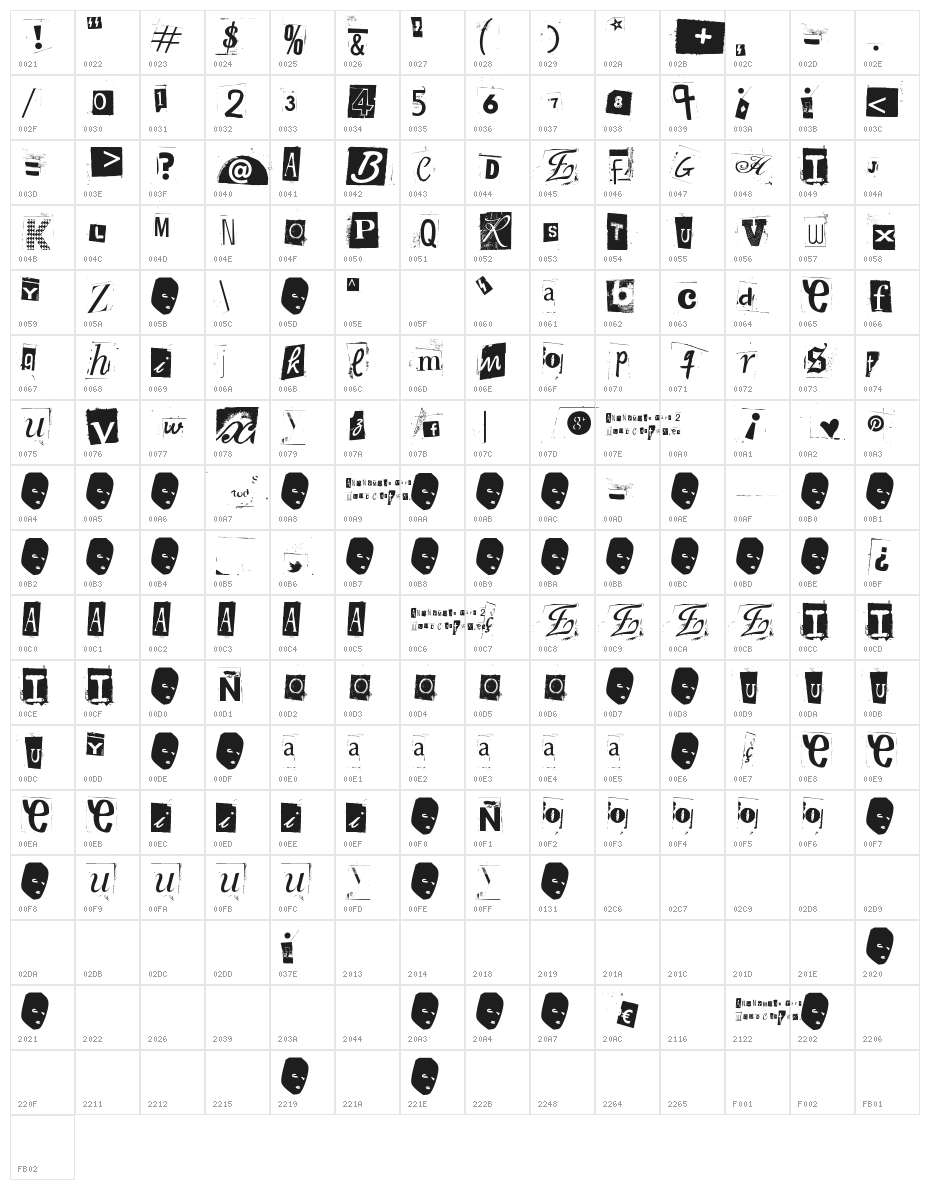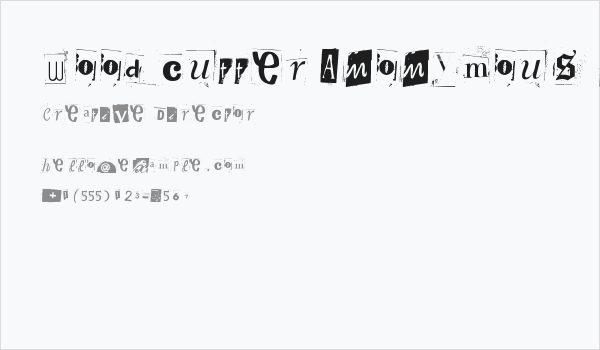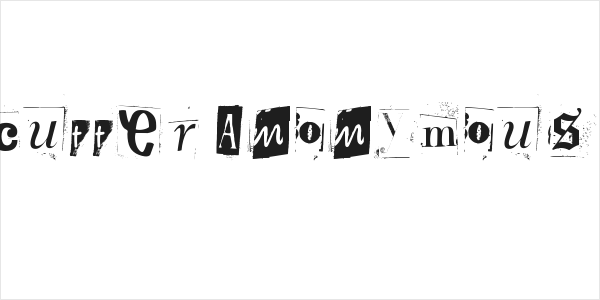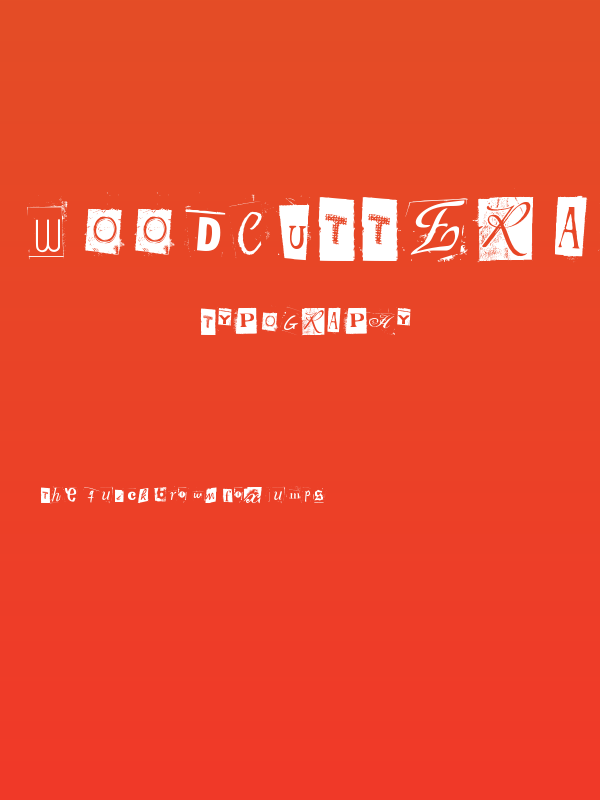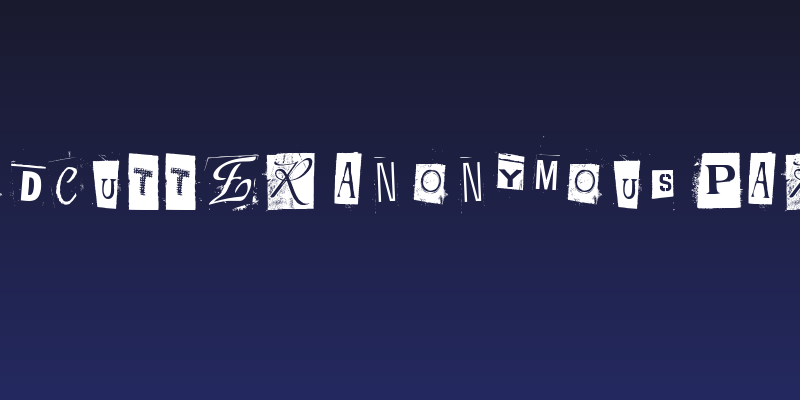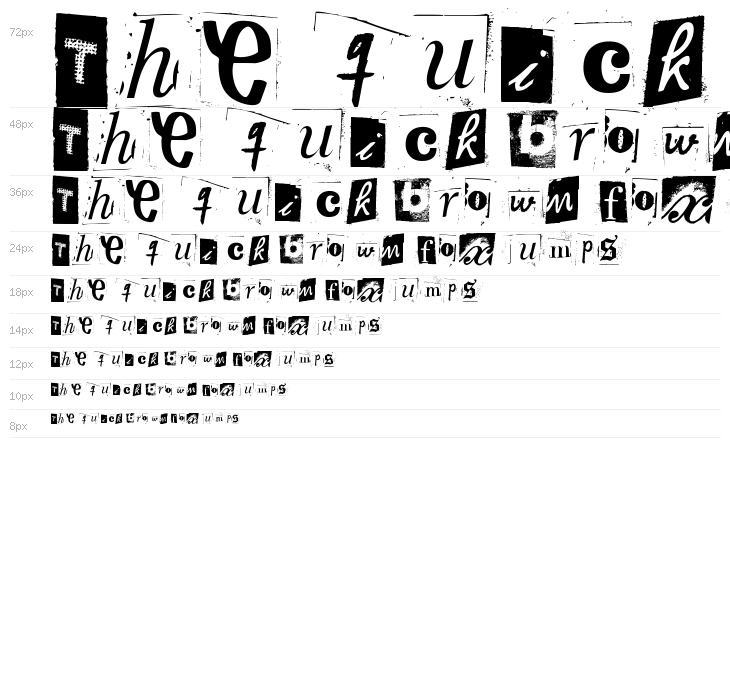
Woodcutter Anonymous part 2 Font
Woodcutter Anonymous part 2 Description
This font is a playful and eclectic mix of styles, reminiscent of ransom note typography. Each character appears to be cut from different sources, creating a collage effect that is both chaotic and intriguing. The uppercase and lowercase letters, as well as numbers and special characters, are all distinct from one another, showcasing a variety of serif, sans-serif, and decorative styles. The overall appearance is rough and textured, with some characters featuring distressed or grunge elements. This font is designed to capture attention with its unconventional and artistic flair.
| Overall Style | Decorative, Artistic |
| Use Case | Headlines, Artistic designs, Posters |
| Proposed Projects | Ideal for creative projects such as posters, album covers, or any design requiring a unique and eye-catching aesthetic. |